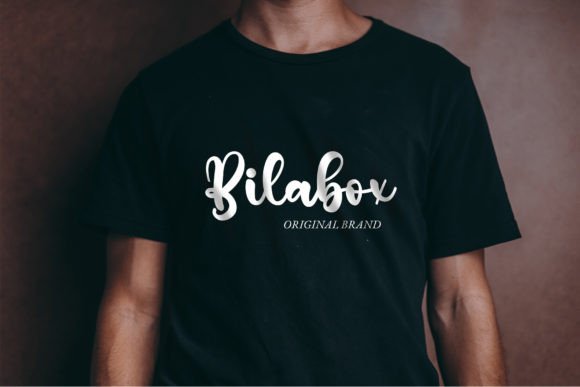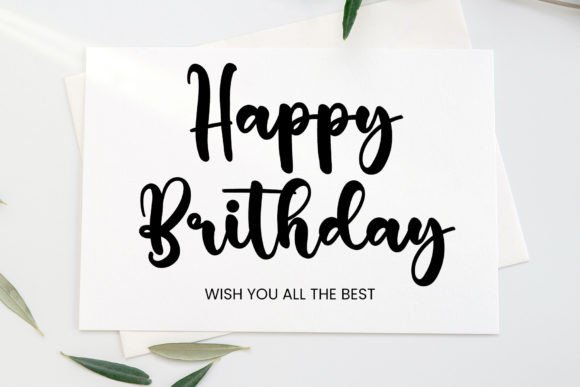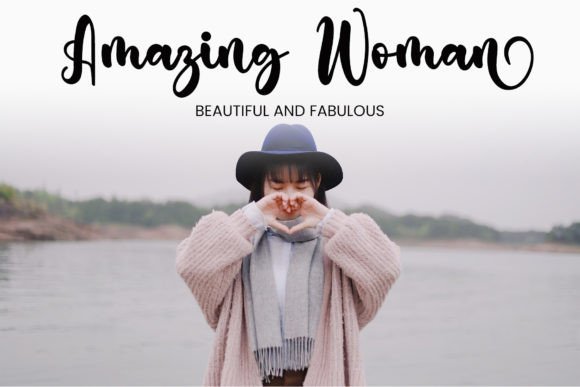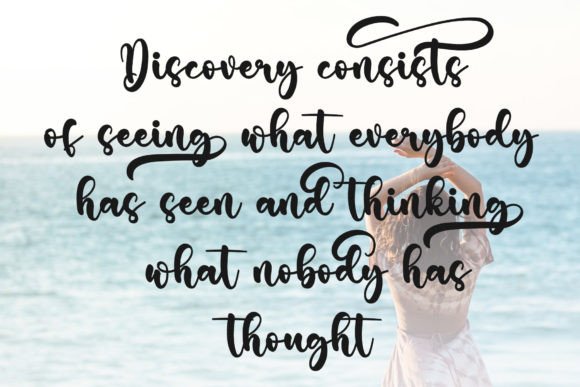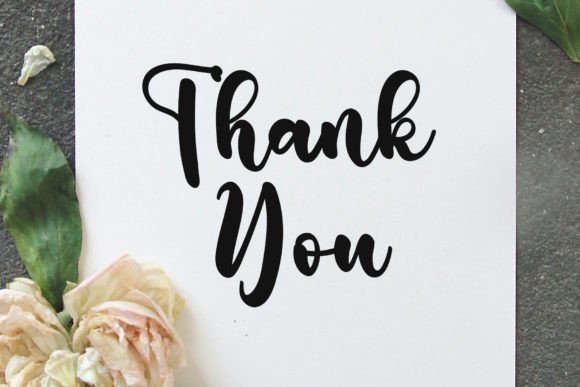
Introducing Desolation Font: A Festive and Happy Typeface for the Holiday Season
The holiday season is upon us, and what better way to get into the spirit than with a font that’s as festive and happy as Desolation? This decorative typeface is designed to capture the essence of the holiday season, bringing a touch of charm and nostalgia to your designs. Whether you’re a designer, crafter, or DIY enthusiast, Desolation Font is the perfect addition to your toolkit.
A Festive and Happy Typeface
Desolation Font is a unique and eye-catching typeface that’s specifically designed to evoke the feeling of the holiday season. With its intricate details and decorative elements, this font is sure to add a touch of magic to your designs. The font’s playful and cheerful vibe makes it perfect for a wide range of projects, from greeting cards and gift labels to holiday-themed posters and social media graphics.
Desolation Font is ideal for any project that requires a festive and celebratory feel. Here are just a few ideas to get you started:
- Greeting cards: Create beautiful and unique holiday cards that will stand out from the crowd.
- Gift labels: Add a personal touch to your gifts with custom labels that feature the Desolation Font.
- Holiday-themed posters: Create eye-catching posters that showcase the font’s festive and cheerful vibe.
- Social media graphics: Add some holiday cheer to your social media feeds with graphics that feature the Desolation Font.
- Craft projects: Use the font to add a personal touch to your craft projects, such as scrapbooking, journaling, and paper crafting.
One of the best things about Desolation Font is that it’s PUA (Private Use Area) coded, which means you can access all the amazing glyphs and ligatures easily. This makes it simple to incorporate the font into your designs, without having to worry about complicated coding or technical issues.
What is PUA Coding?
PUA coding is a way of encoding fonts that allows designers to access additional characters and glyphs that are not part of the standard Unicode character set. This means that fonts that are PUA coded, like Desolation Font, offer a wider range of design possibilities and flexibility.
Benefits of Using Desolation Font
So why choose Desolation Font for your holiday-themed projects? Here are just a few benefits:
- Unique and eye-catching: The font’s decorative elements and unique flair make it stand out from more traditional typefaces.
- Festive and happy: Desolation Font captures the spirit of the holiday season, adding a touch of cheer and nostalgia to your designs.
- Easy to use: The font is PUA coded, making it simple to access all the glyphs and ligatures.
- Versatile: The font can be used for a wide range of projects, from greeting cards to social media graphics.
Tips for Using Desolation Font
Here are a few tips to help you get the most out of Desolation Font:
- Use the font to create a focal point in your design, such as a title or heading.
- Combine Desolation Font with other fonts to create a unique and eye-catching look.
- Don’t be afraid to get creative and try new things – the font is designed to be fun and playful!
Desolation Font is a festive and happy typeface that’s perfect for the holiday season. With its decorative elements, unique flair, and PUA coding, this font is sure to add a touch of charm and nostalgia to your designs. Whether you’re a designer, crafter, or DIY enthusiast, Desolation Font is a great addition to your toolkit. So why not give it a try and see how it can bring some holiday cheer to your projects?